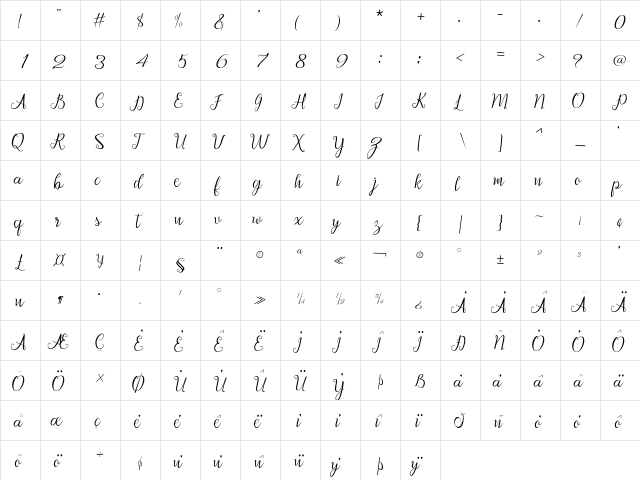
Afrile script Regular
| Foundry | Fajriadi pholetter |
| Designer | Fajriadi pholetter |
Design Context for Afrile script Typeface
Afrile script brings a calligraphic fluidity to the page — its connecting strokes and expressive curves give it an unmistakably human quality.
Font Pairing: Combine Afrile script with a simple geometric sans for maximum contrast — the tension between flowing curves and clean structure is a classic typographic pairing.